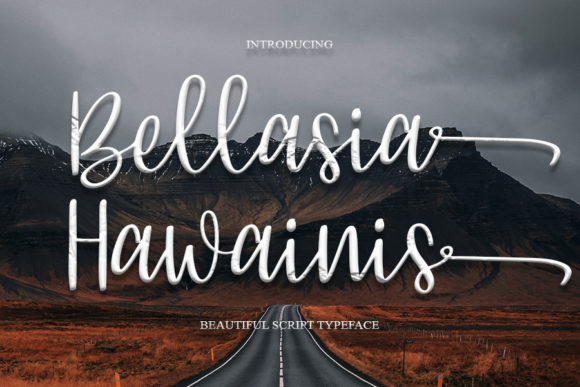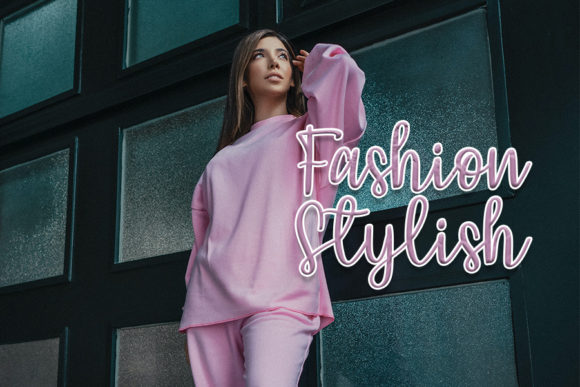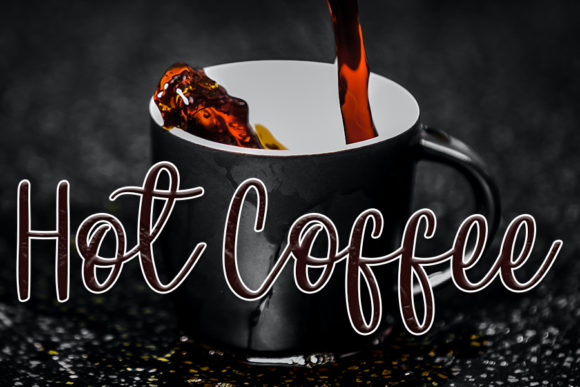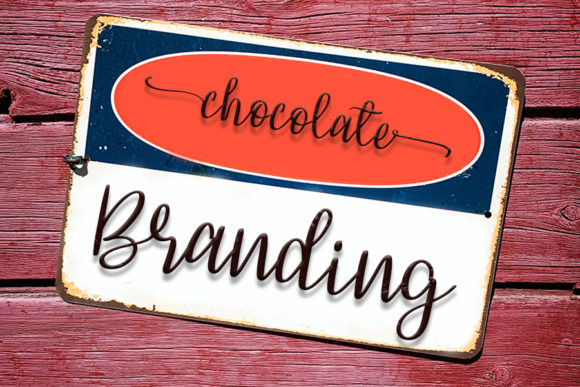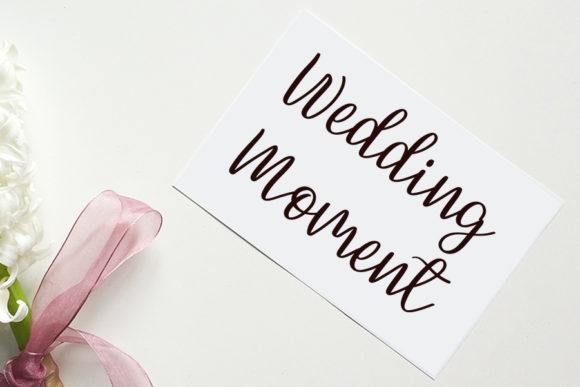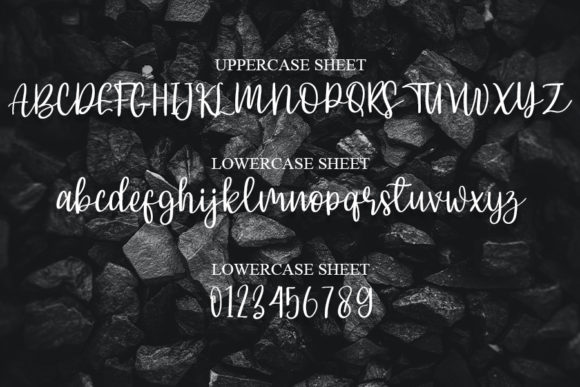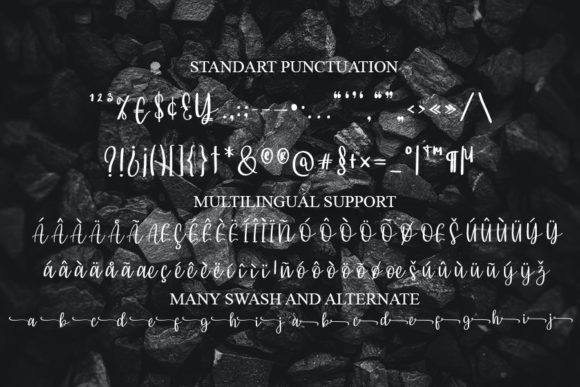
Bellasia Hawainis Font
About Bellasia Hawainis Font
Bellasia Hawainis is a romantic and dainty script font. It has a classy, elegant and modern look that can be used for logos, branding, invitations, stationery, wedding designs, social media posts, and much more! This font is PUA encoded which means you can access all of the glyphs and swashes with ease!